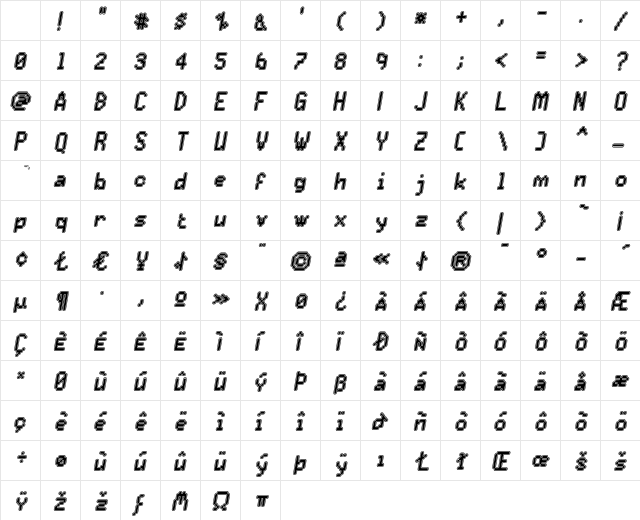
Praxis CollegiateOblique Free Font
Praxis CollegiateOblique
Style: CollegiateOblique
Design Context for Praxis
Praxis is a composed and adaptable typeface that performs quietly and consistently across a wide range of design contexts. The slanted form adds forward momentum and visual energy.